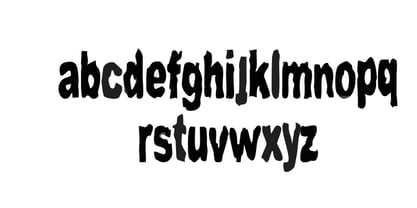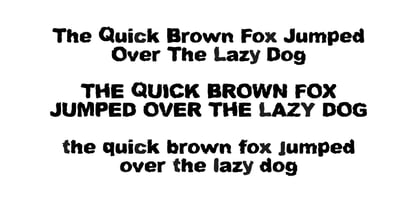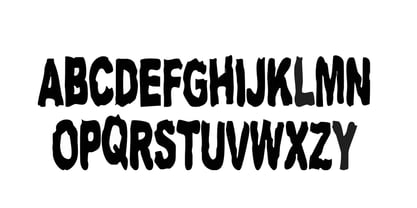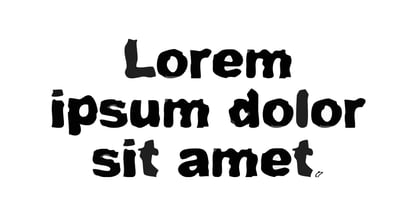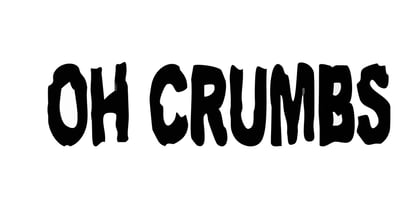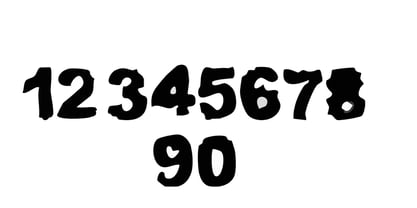
Ohbiscuitcrumbs
by Jointype
The Ohbiscuitcrumbs Font Family was designed by Jeremy Gill-Praba and published by Jointype. Ohbiscuitcrumbs contains 1 styles. More about this family
This font is a delightful, handcrafted typeface that captures the whimsical essence of biscuit crumbs scattered playfully across a surface. Each letter appears as if it has been gently crumbled or chipped away, featuring soft, uneven edges that are slightly jagged. The characters boast a textured, speckled look, reminiscent of tiny biscuit bits clinging to them. With rounded, organic strokes and charming imperfections, this font exudes warmth and coziness—making it an excellent choice for designs centered around food, comfort, or nostalgic childhood snacking moments. The font's density varies, with certain areas appearing more 'crumbed' than others, enhancing its depth and dimension. Its overall playful yet rustic aesthetic is perfect for projects aiming to convey an informal, friendly, and appetizing vibe.
Designers: Jeremy Gill-Praba
Foundry: Jointype